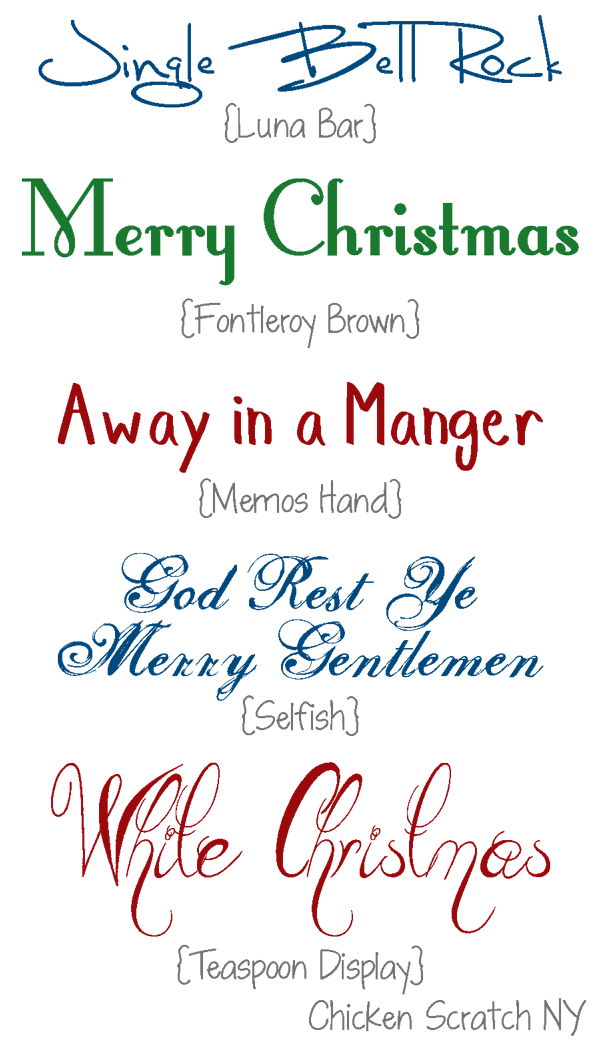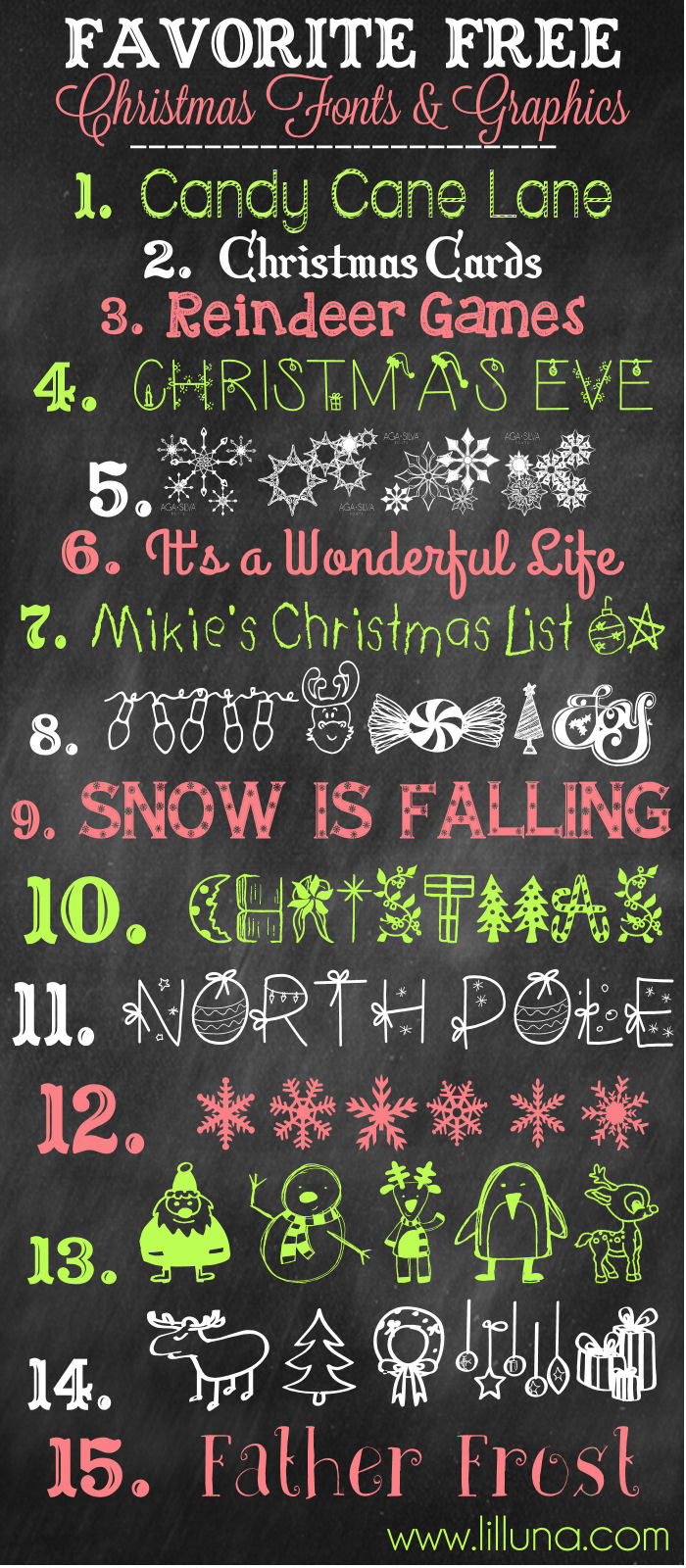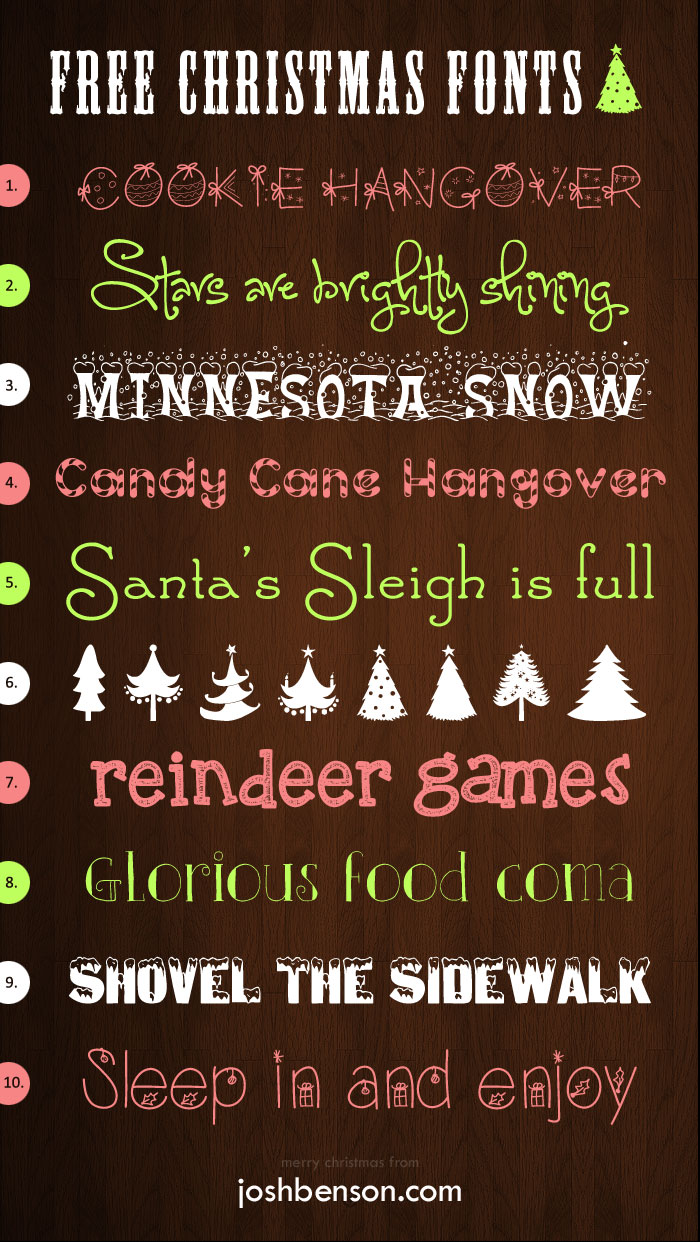
Milkshake · great vibes · kingthings calligraphica · mountains of christmas. The thin letters paired with the subtle accent lines makes for a truly elegant typeface, which would work with a number of holiday designs. We have 289 free christmas fonts to offer for direct downloading 1001 fonts is your favorite site for free fonts since 2001.
Christmas Dream By Hatf Type.
Download and type, or make designs to the tune of the season with these fonts, and you will be sending the christmas spirit all over. This font can be used for large designs in your website such as headings, logo, title. The thin letters paired with the subtle accent lines makes for a truly elegant typeface, which would work with a number of holiday designs.
Try This Christmas Eve Font And Decorate Your Websites.
Lettertype Mies Christmas Icons By Studio Mies.
This Font Will Surely Bring You That Jolly Holly Vibe When Used On Your Personalized Holiday Tags Or Cards For That Warm Touch On Your Presents.
This christmas font for free projects that classic brush font style with a magical christmas effect. This free holiday font comes in regular and italic style with extra ornaments and symbols. Steal someone’s attention all for yourself, not their christmas, with this cheerful christmas free font.